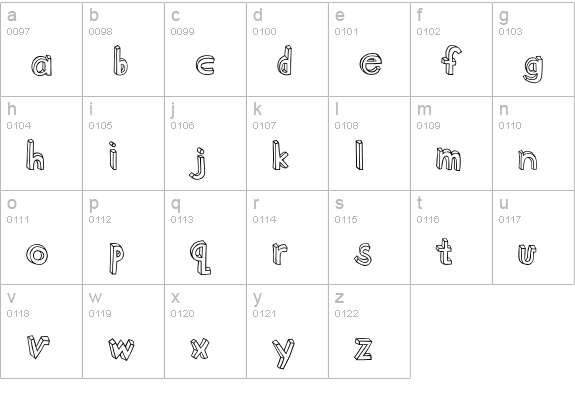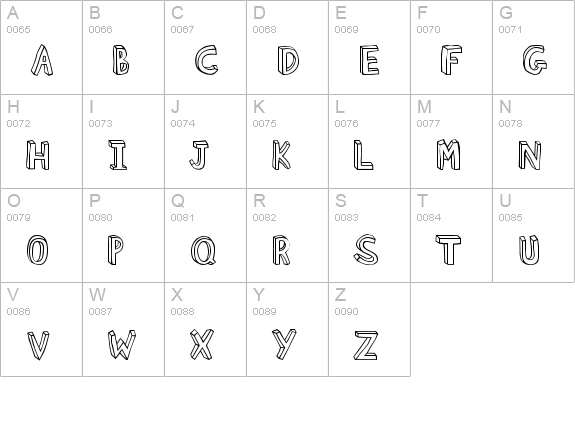
BlockheadPlain Font Details
BlockheadPlain font is a modern and versatile typeface that adds a touch of sophistication to any design project. With its clean lines and bold appearance, this font is perfect for headlines, titles, and other attention-grabbing text. The simple yet stylish letterforms make BlockheadPlain font suitable for a wide range of applications, from branding to editorial design. The best part? BlockheadPlain font is completely free to download at FontsMarket.com. Whether you're a professional designer looking to add a new font to your collection or a student working on a project, this font is accessible to everyone. Don't miss out on the opportunity to enhance your designs with the unique charm of BlockheadPlain font. Download it today and start creating stunning visuals with ease.